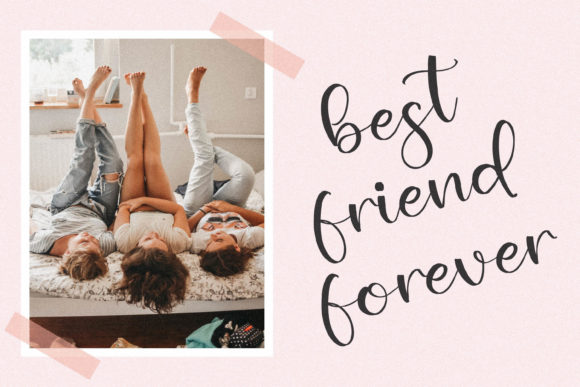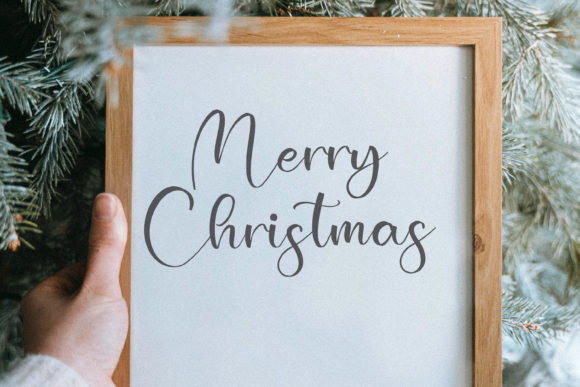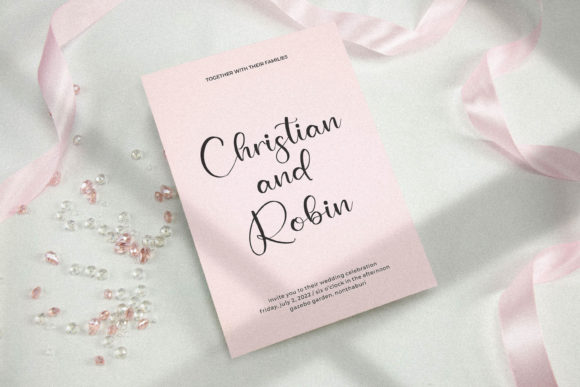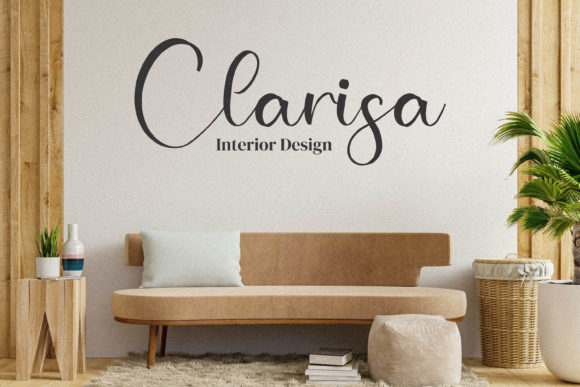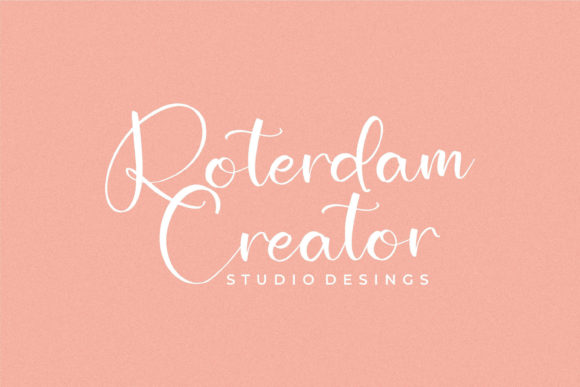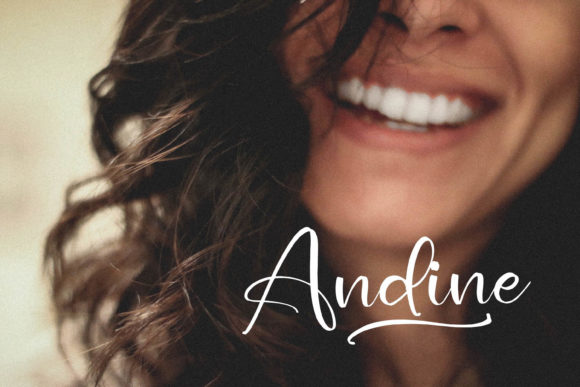
Introduction to Christian Sunday Font
Christian Sunday is a lovely and delicate script font that exudes elegance and class.
This font was particularly crafted for those who need a beautiful and refreshing look to their designs Christian Sunday is PUA encoded which means you can access all of the glyphs and swashes with ease.